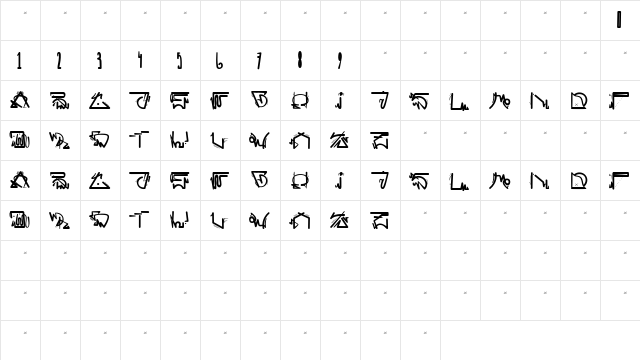
FUTURISTA SP Medium
Design Context for FUTURISTA SP Typeface
FUTURISTA SP channels digital-age aesthetics through its sharp, structured letterforms — ideal for brands that want to signal innovation.
Pro Tip: Use FUTURISTA SP in combination with a neutral sans for body text. Let it define the brand voice in headlines while keeping reading comfortable elsewhere.